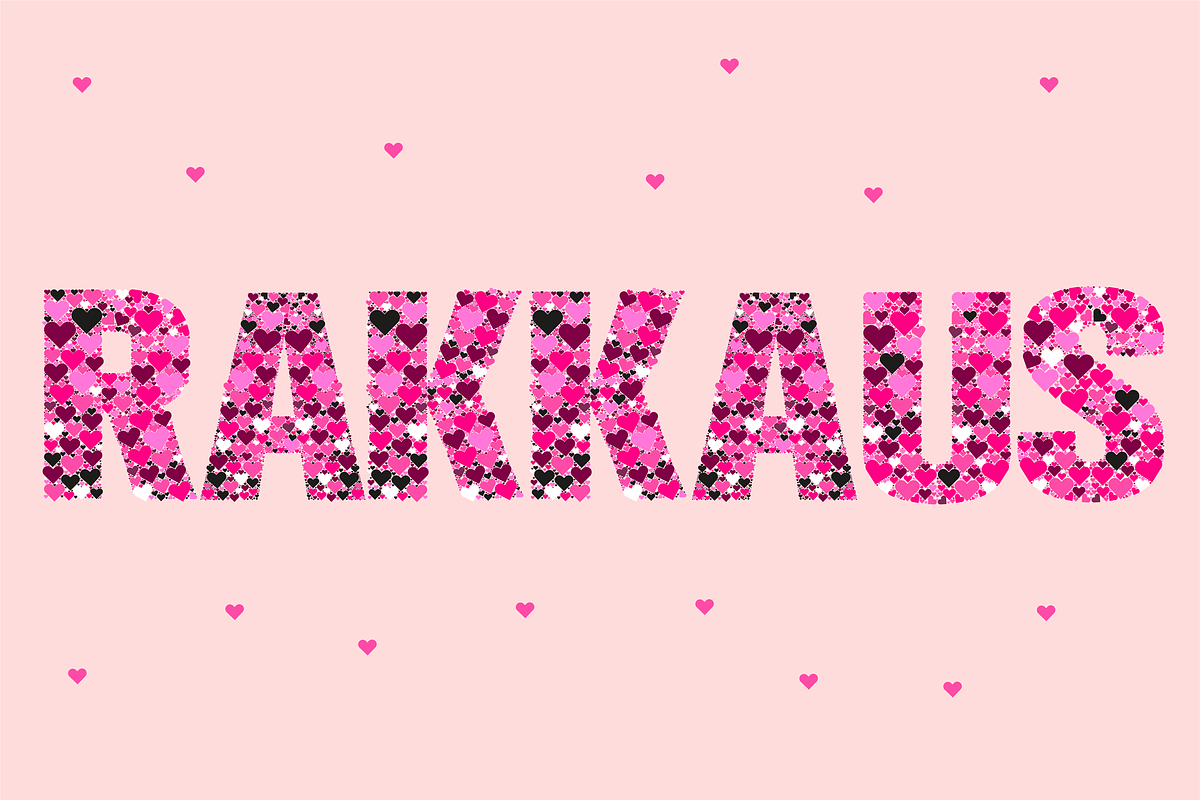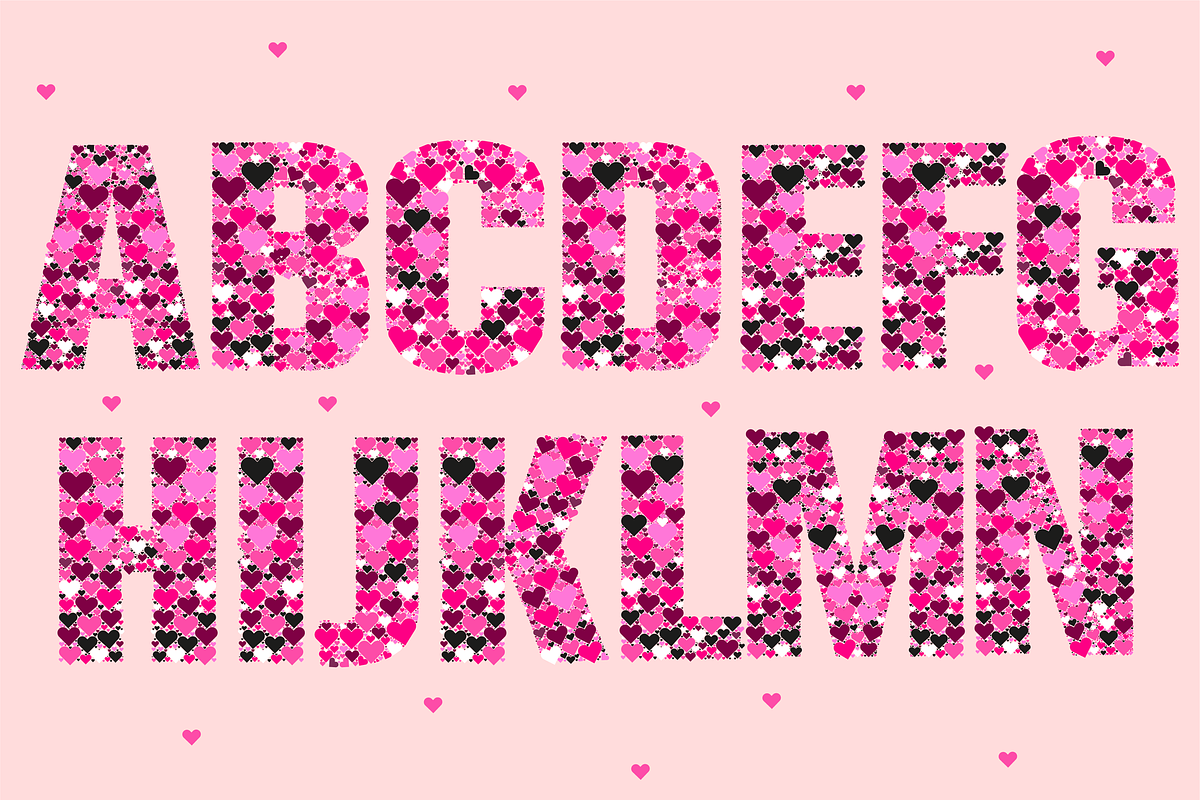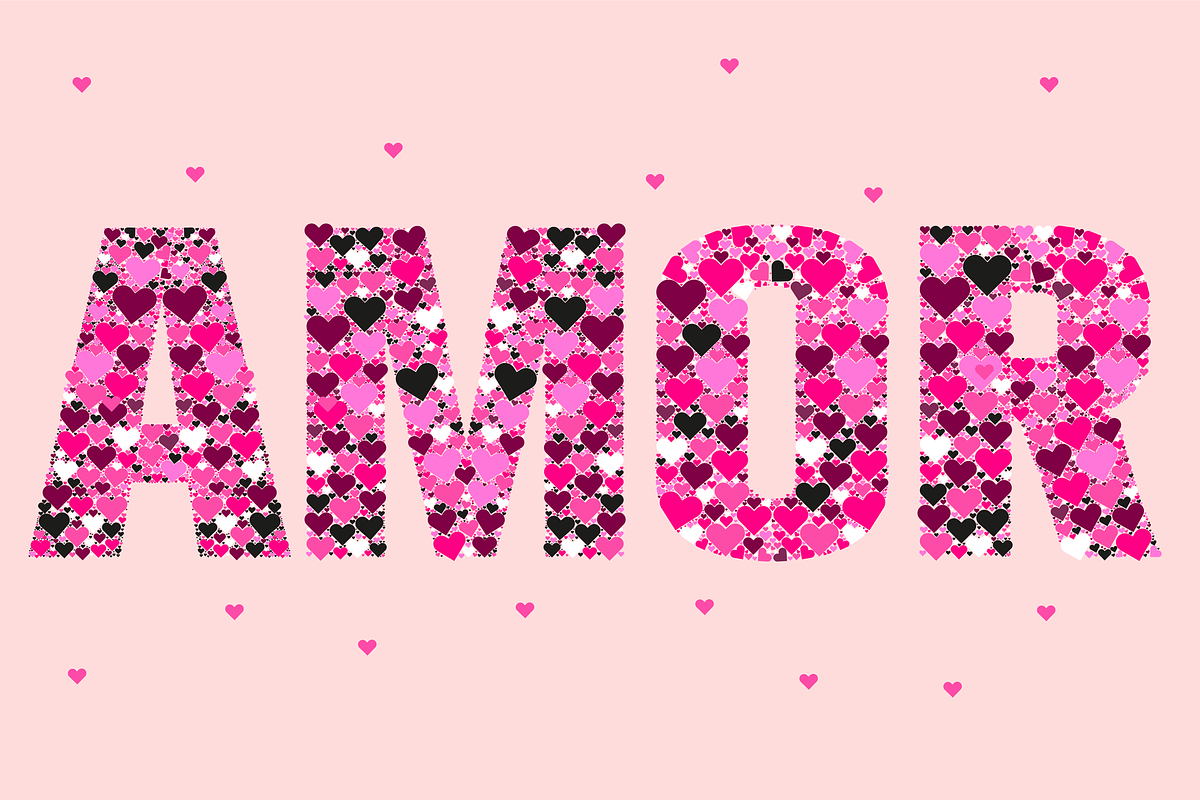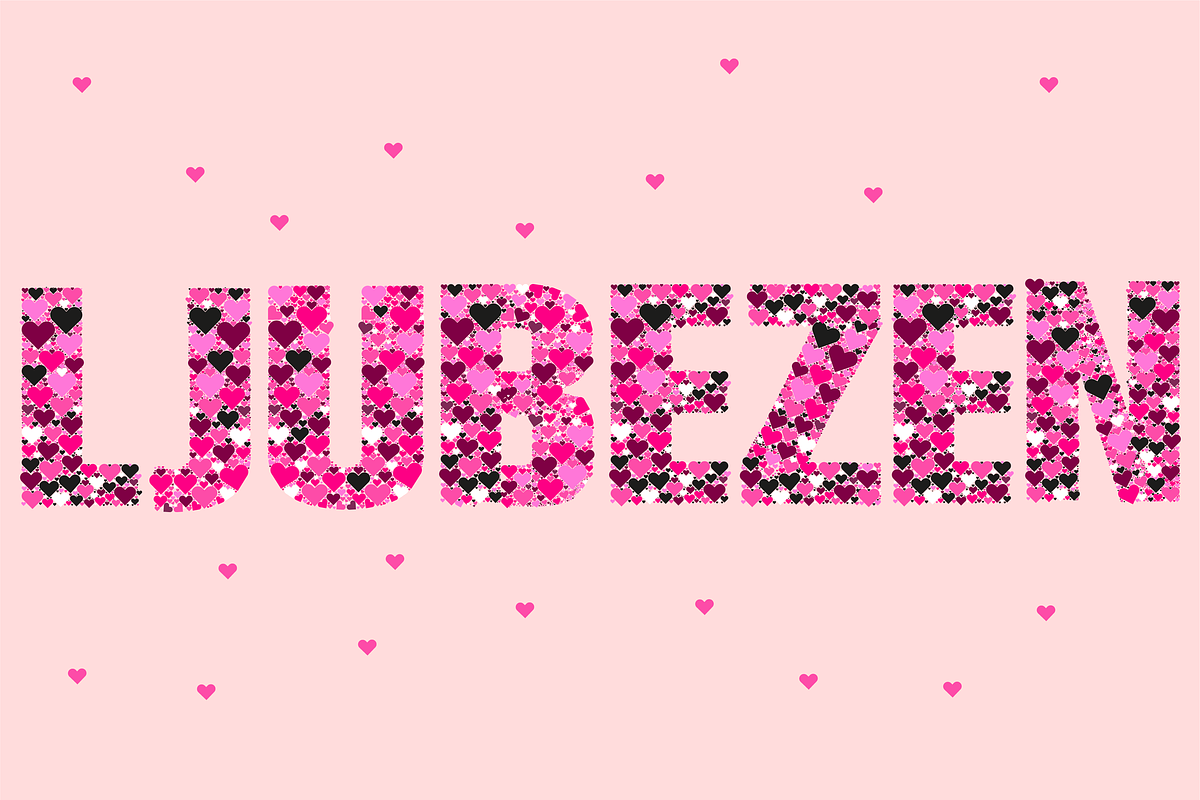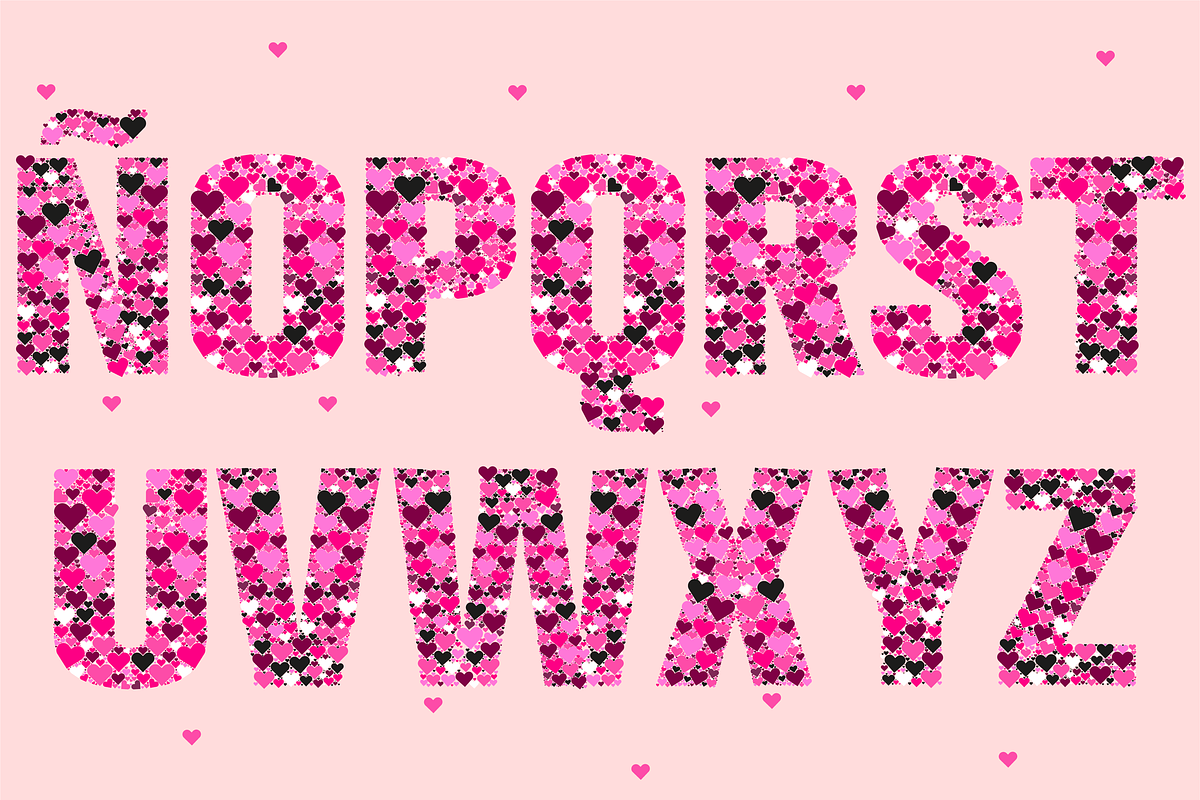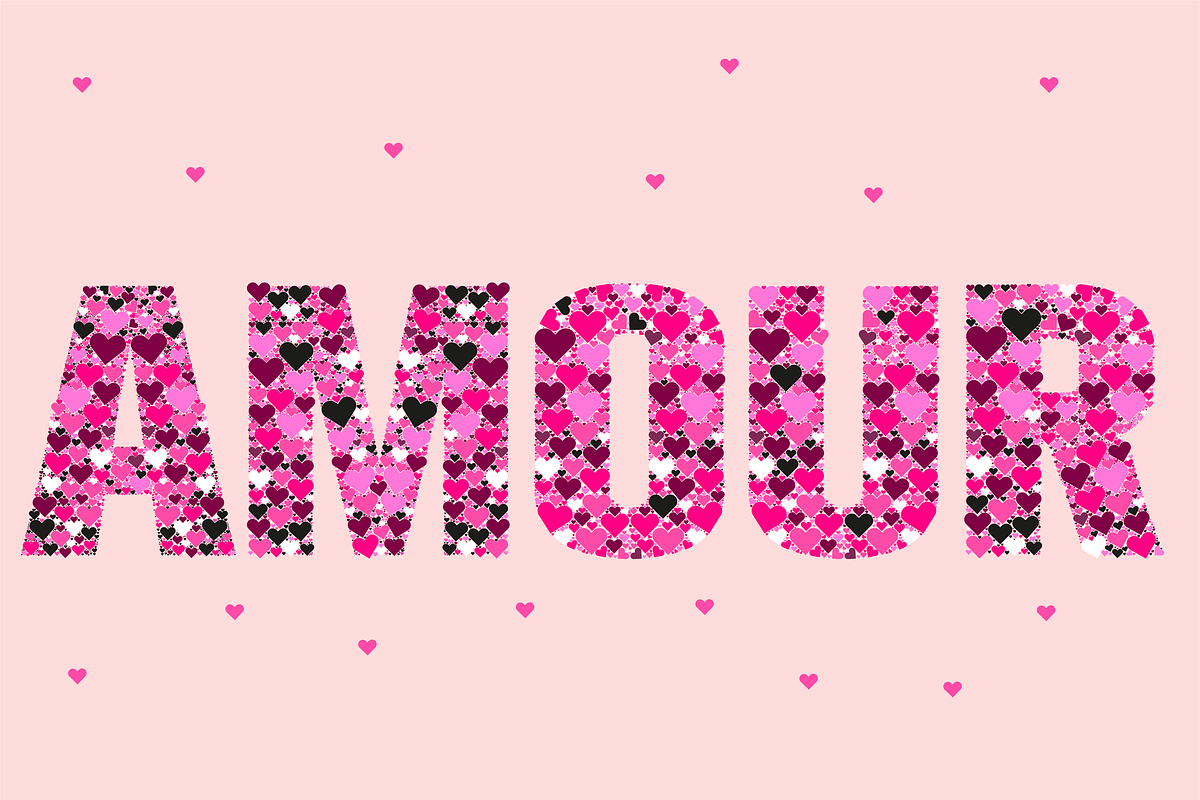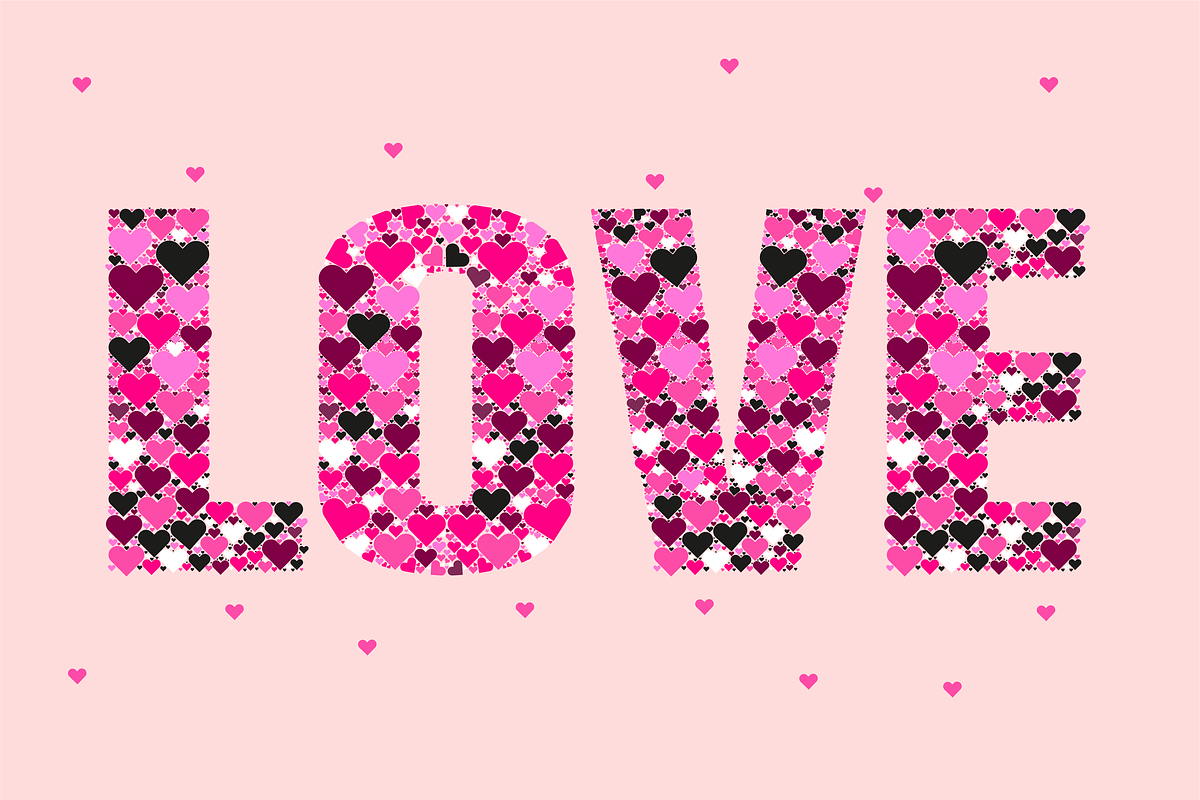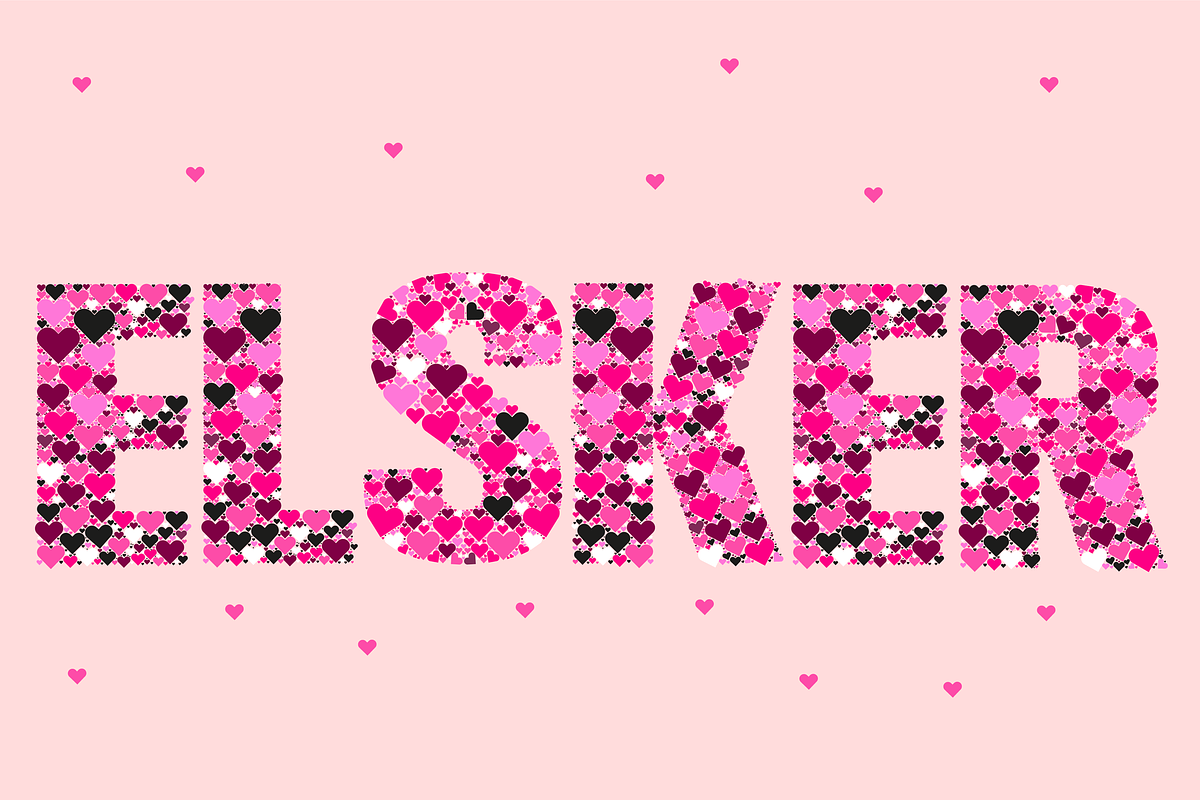
Love Font
Beautiful font for the month of lovers, contains the letters separately in illustrator and PNG and also the 7 combinations of the word love in 7 different languages in illustrator and PNG.
Why Love Font is worth a look
Love Font by yaisalinas fits naturally into Branding, posters, packaging, typography.